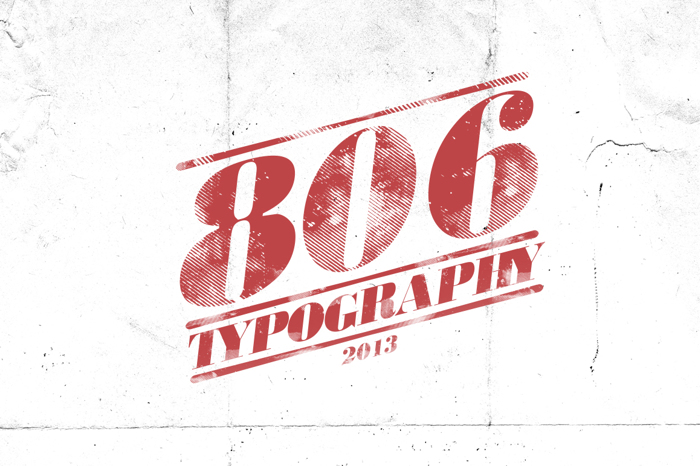
806 Typography Font
This is handmade Font, Calligraphy style, Suitable for design, element design, wedding, event, t-shirt, logo, badges, sticker, and awesome work about summer.